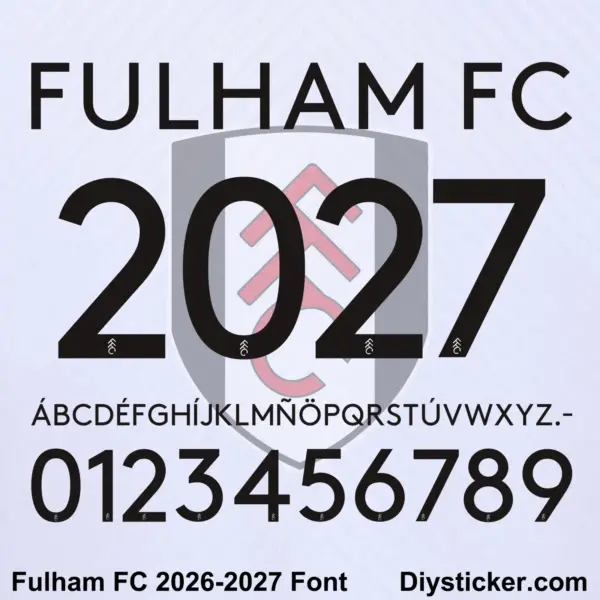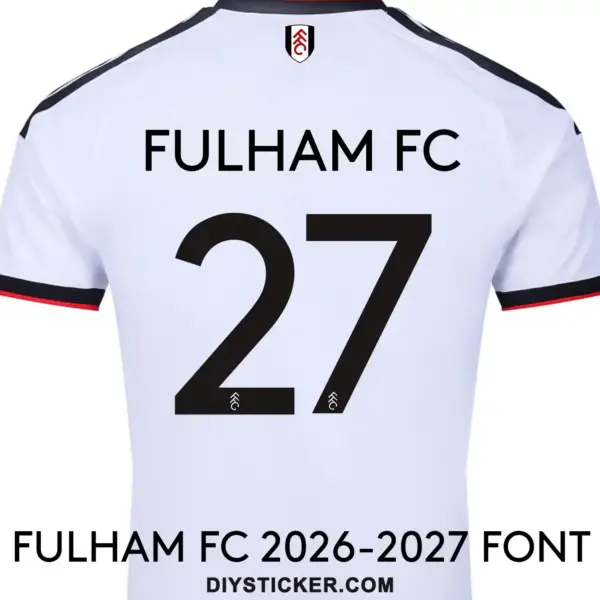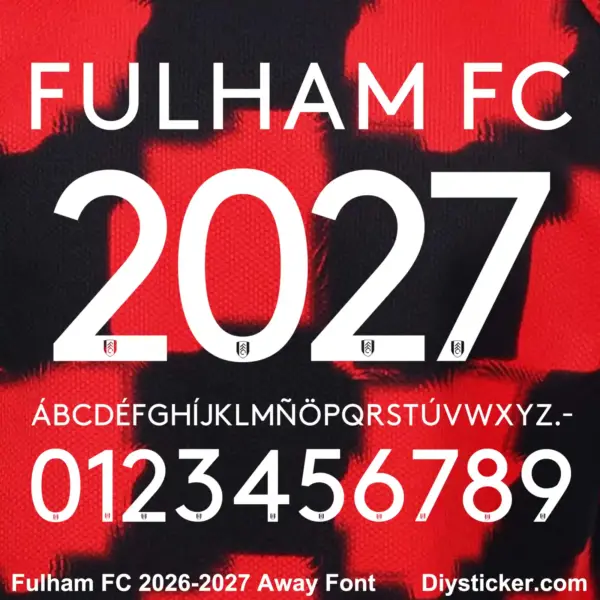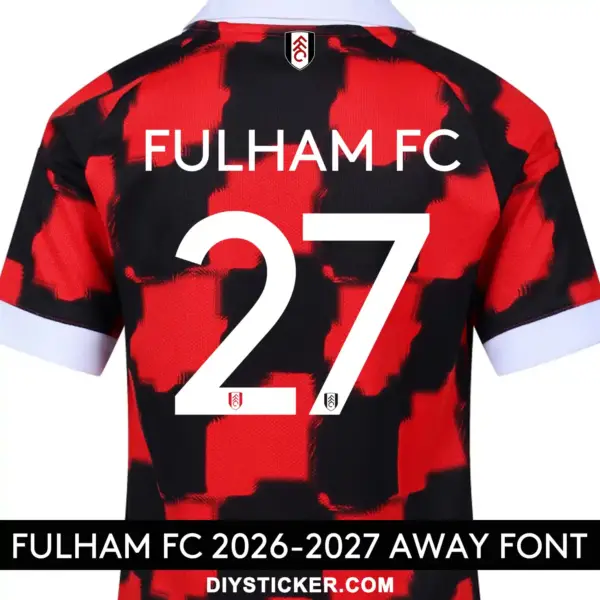
Custom-tailored for apparel printing shops, vinyl cutters, and kit collectors, the official Fulham FC 2026-2027 font download delivers the signature typography set worn by The Cottagers! Featuring geometric sans-serif lettering with clean proportions and the official Fulham crest centered at the base of every digit, this dual-color pack includes both the solid black home kit version and the crisp white away kit layout. It is the premier custom jersey printing font Fulham FC package for heat press transfers, DTF printing, and custom vinyl production.
Complete uppercase alphabet, Fulham FC numbers vector, and international accents.
Official Match-Day Fulham 2026-2027 Font
Upgrade your sports typography workflow with the official 2026-2027 kit font for Fulham Football Club! Designed for precise jersey customization, this comprehensive digital package includes an authentic Fulham FC 2026-2027 font download that strictly mirrors Craven Cottage decoration standards. The typography features clean, geometric uppercase letterforms (FULHAM FC) alongside tall, high-contrast squad numbers accented with the iconic Fulham crest at the base.
Whether you need a versatile Fulham FC jersey font vector for high-resolution transfer layouts or a pre-cleaned Fulham FC 2026-2027 font cdr download for automated vinyl plotters, this bundle provides exact line geometry and node precision for both the classic white home shirt and the bold red-and-black away jersey.
Comprehensive Character Mapping
A-Z Uppercase Alphabet: High-legibility, geometric sans-serif characters designed for player nameplates.
0-9 Custom Squad Numbers: Bold, tall numeric glyphs featuring the official Fulham shield crest embedded cleanly at the bottom (supplied as Fulham FC numbers vector).
Special Accents & Diacritics: Complete set of international accents (
Á,Č,Ç,É,Ğ,Í,Ñ,Ö,Š,Ú,Ž,.,-) to accurately print custom player nameplates across the international squad roster.